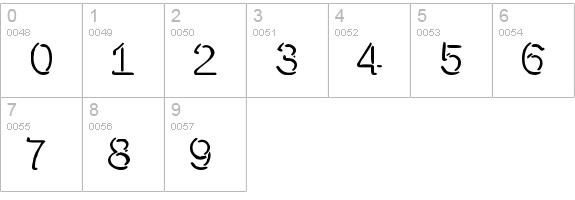
Roundheads Font Details
The Roundheads font is a charming and versatile typeface that exudes a playful yet sophisticated appeal. With its rounded edges and clean lines, this font is perfect for a wide range of design projects, from branding and packaging to invitations and social media graphics. The Roundheads font is available for free download at FontsMarket.com, making it easily accessible to all designers looking to add a touch of whimsy to their creations. Whether you're working on a fun and quirky project or a more polished and professional design, the Roundheads font is sure to make a statement with its unique and eye-catching style.